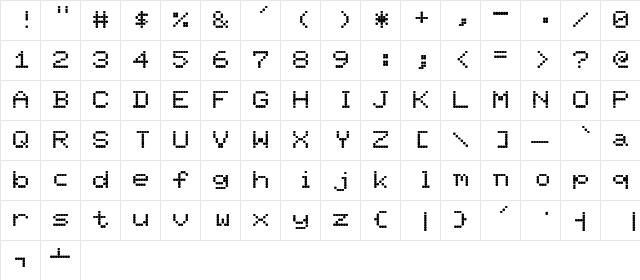
Dots OK Regular
Design Context for Dots OK Typeface
Dots OK is rooted in pixel-grid construction, making it a natural fit for game UI, retro computing aesthetics, and digital nostalgia projects.
A natural choice for retro game titles, chiptune music branding, 8-bit UI, and digital nostalgia projects.
Pro Tip: Pair Dots OK with flat colour palettes and simple geometric UI elements to reinforce its digital aesthetic.